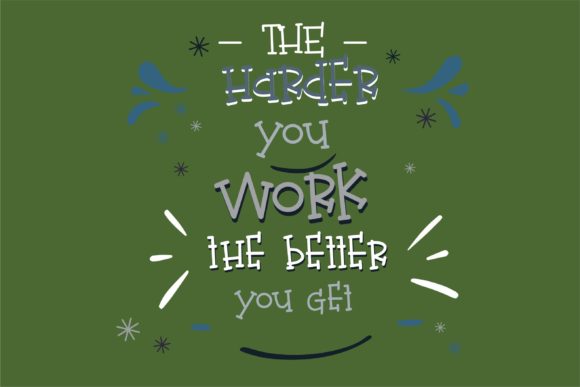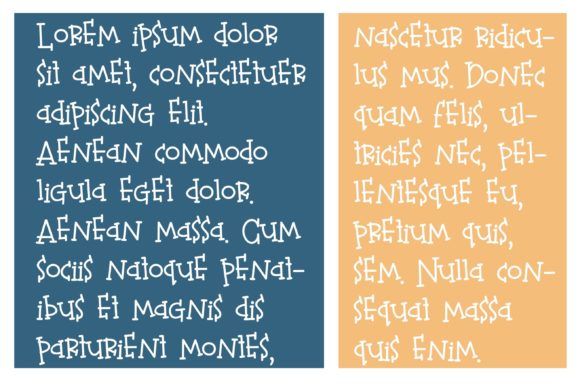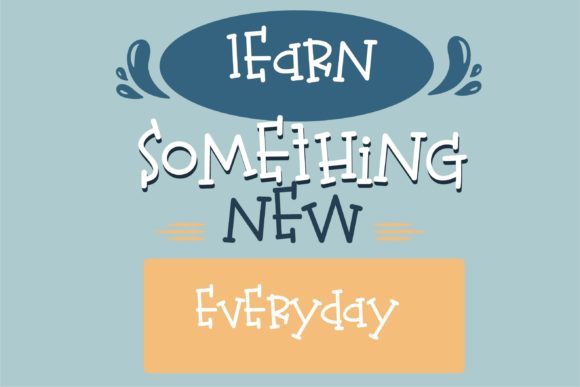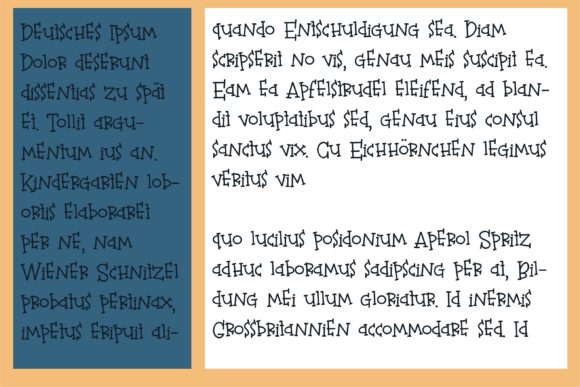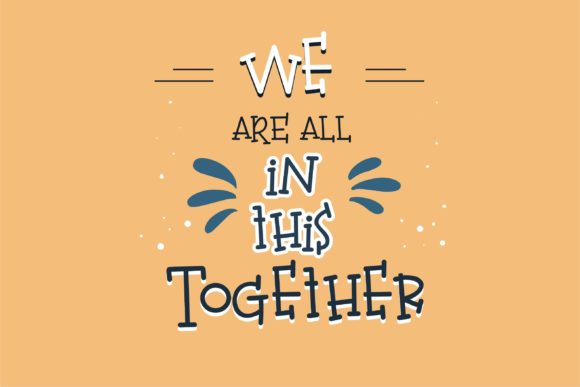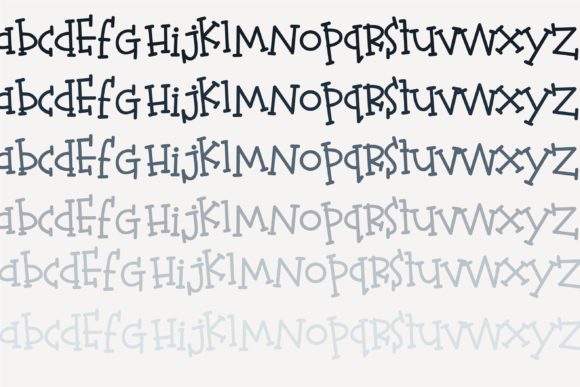
Figment
Figment: A Cute and Whimsical Slab Serif Font
Figment is a cute and whimsical slab serif font. It’s perfect for a wide range of applications, including product packaging, branding projects, magazine covers, social media content, wedding designs, or simply to express words above a background.
Key Features of Figment
• Cute Design: Offers a charming and playful look suitable for various applications.
• Slab Serif Structure: Features distinctive serifs that add character and style.
• Whimsical Appearance: Brings a touch of fantasy and imagination to designs.
• Versatile Application: Ideal for both print and digital media projects.
Ideal Uses for Figment
Figment’s unique characteristics make it particularly well-suited for:
When incorporating Figment into your designs, consider these tips:
• Use for headlines or short blocks of text to showcase its whimsical style.
• Experiment with different sizes to highlight the font’s cute features.
• Utilize its playful appearance in designs that require a touch of fun and imagination.
Figment is an excellent choice for designers looking to add a cute and whimsical slab serif font to their typographic toolkit. Its ability to bring charm and playfulness to various design projects makes it stand out in the world of typography. Whether you’re working on product packaging, creating social media content, or developing designs for weddings, Figment offers the perfect blend of style and fun.
Furthermore, Figment’s unique design allows it to shine in various contexts. From children’s products to more adult-oriented designs that need a touch of whimsy, this font can elevate your projects. Its charming yet functional style works particularly well in designs that aim to evoke feelings of joy and imagination.
In conclusion, Figment is a font that truly captures the essence of cuteness and whimsy in typography. Its ability to work well in both playful projects and more sophisticated layouts showcases its versatility. For those looking to add a touch of imaginative charm to their work, Figment can enhance themed creations with its distinctive style. It’s the perfect choice for designers seeking to make a fun, stylish impact across a wide range of creative projects.